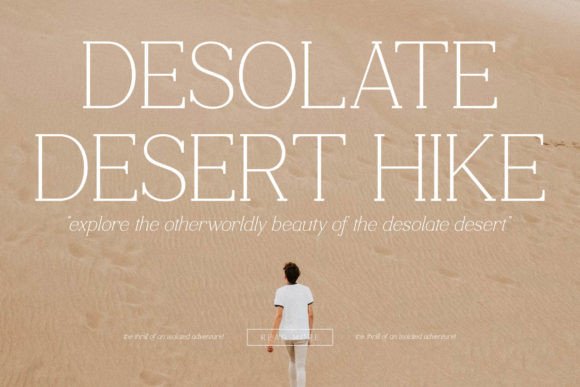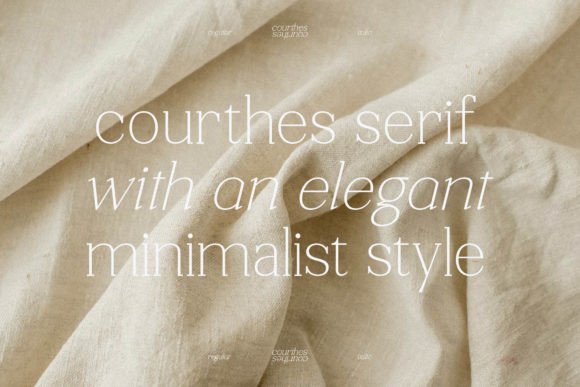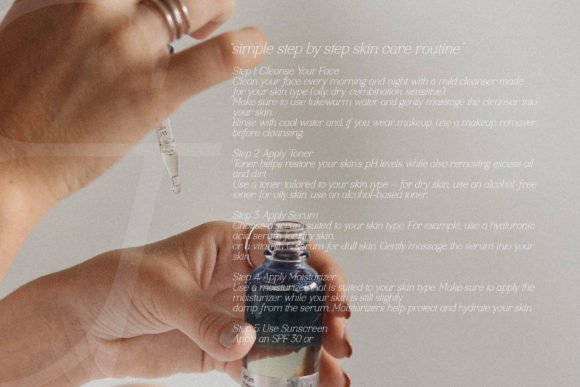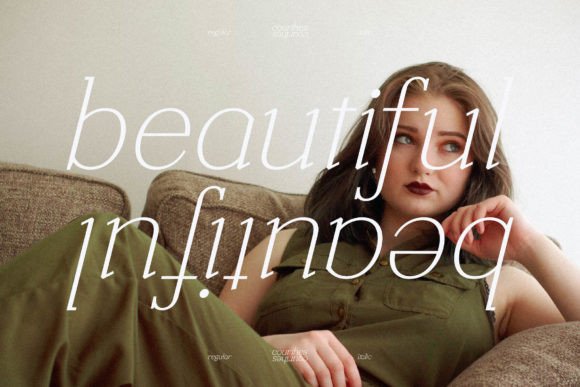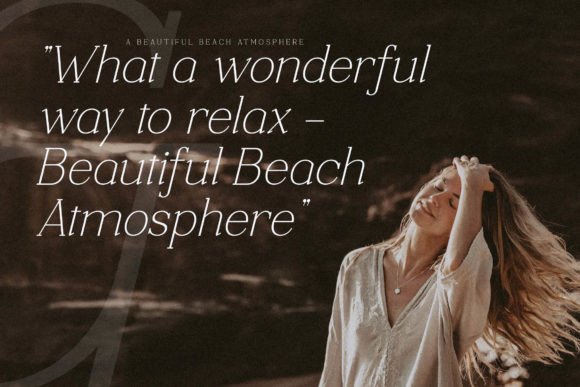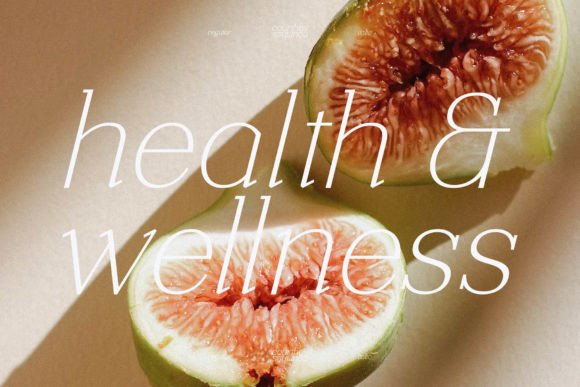
Introducing Courthes Font: A Modern Classic Serif Typeface
Are you on the hunt for a typeface that exudes elegance, sophistication, and a touch of modernity? Look no further than Courthes Font, a stunning serif typeface created by the talented team at Storytype. This beautiful font is perfect for designers and crafters seeking to add a luxurious touch to their projects, whether it’s a logo, book or movie title, fashion brand, magazine, or clothing design.
What Makes Courthes Font Stand Out?
Courthes Font boasts a unique blend of classic and modern elements, making it a versatile and eye-catching addition to any design. Its serif design lends a sense of tradition and timelessness, while its clean lines and subtle curves give it a fresh, contemporary feel. This typeface is perfect for creating elegant and sophisticated designs that demand attention.
Key Features of Courthes Font
- Unique Style: Courthes Font has its own distinct style that sets it apart from other serif typefaces. Its subtle flair and refined lines make it perfect for creating luxurious and high-end designs.
- Modern Look: Despite its classic roots, Courthes Font has a distinctly modern feel that makes it perfect for contemporary designs.
- High Versatility: This typeface is incredibly versatile, making it suitable for a wide range of applications, from elegant logos and title designs to fashion brands and magazine layouts.
Courthes Font is an incredibly versatile typeface that can be used in a multitude of design projects. Here are just a few examples of how you can use this stunning font:
- Elegant Logos: Create a luxurious and sophisticated logo for a high-end brand or business.
- Book or Movie Titles: Add a touch of elegance to your book or movie title designs with Courthes Font.
- Fashion Brands: Use Courthes Font to create stunning fashion brand designs that exude style and sophistication.
- Magazines: Create a beautiful and elegant magazine layout with Courthes Font.
- Clothing Designs: Add a touch of luxury to your clothing designs with Courthes Font.
- Lettering and Quotes: Use Courthes Font to create stunning lettering and quote designs that are perfect for social media, posters, or prints.
Why Choose Courthes Font?
With so many typefaces available, why choose Courthes Font? Here are just a few reasons why this stunning serif typeface stands out:
- Unique Style: Courthes Font has a unique style that sets it apart from other typefaces.
- High Quality: This typeface is designed with high-quality craftsmanship, ensuring that it looks stunning in any design.
- Easy to Read: Despite its elegant design, Courthes Font is incredibly easy to read, making it perfect for body text and headlines.
- Customizable: With Courthes Font, you can customize your design to fit your brand’s unique style and aesthetic.
In conclusion, Courthes Font is an exceptional serif typeface that offers a unique blend of classic and modern elements. Its elegant design, versatility, and high-quality craftsmanship make it perfect for a wide range of design applications. Whether you’re a designer, crafter, or simply someone looking for a beautiful typeface, Courthes Font is an excellent choice. So why wait? Download Courthes Font today and start creating stunning designs that exude luxury and sophistication.